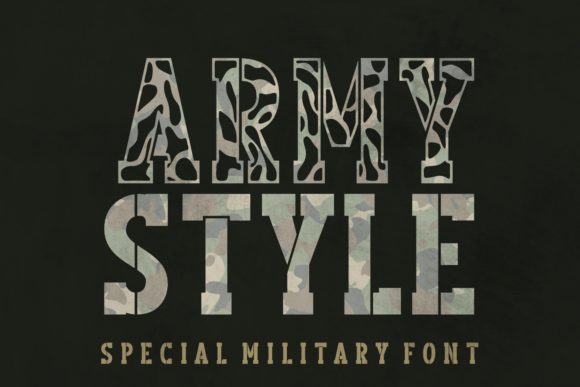
The Ultimate Guide to Army Style Font: Adding a Military Edge to Your Designs
I’ll never forget the time I was working on a project for a client who wanted a bold, edgy font to give their brand a military vibe. I scoured the internet for the perfect font, and that’s when I stumbled upon Army Style. Its strong and assertive personality immediately caught my attention, and I knew I had found the one. In this article, I’ll share my experience with Army Style Font, its features, and how to make the most of it in your designs.
Army Style Font: A Cool Decorative Font with a Military Twist
Army Style is a cool decorative font that exudes a sense of strength and confidence. Its rugged and bold design makes it perfect for t-shirts, stickers, headlines, posters, album covers, or anything that needs a military accent. Whether you’re a designer, crafter, or creative hobbyist, Army Style Font is an excellent addition to your font collection.
- Strong and assertive personality that adds a military edge to designs ✅
- Perfect for headlines, posters, and other attention-grabbing materials 📣
- Works well with bold colors and graphics 🎨
- Easy to read and understand, even at smaller font sizes 📚
- May not be suitable for body text or smaller font sizes, as it can be overwhelming ⚠️
- Limited font variations, which can make it feel a bit repetitive 🔄
Army Style Font was inspired by the classic military fonts used in the 20th century. The designer wanted to create a font that captured the strength and confidence of the military, while also being easy to read and understand. The result is a font that’s both bold and elegant, perfect for adding a military edge to your designs.
Q: What type of projects is Army Style Font best suited for?
A: Army Style Font is perfect for projects that require a strong and assertive personality, such as t-shirts, stickers, headlines, posters, and album covers.
Q: Can I use Army Style Font for body text?
A: While Army Style Font is easy to read, it’s not recommended for body text or smaller font sizes. It’s best used for headings, titles, and attention-grabbing elements.
Q: Is Army Style Font available in different font variations?
A: Army Style Font has limited font variations, but it does come with OpenType features, glyphs, and stylistic alternates that can add more variety to your design.